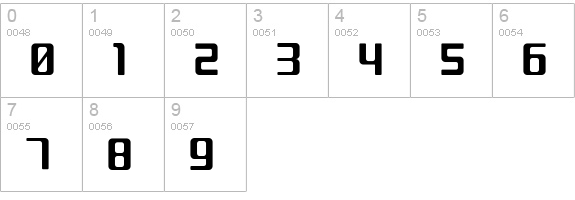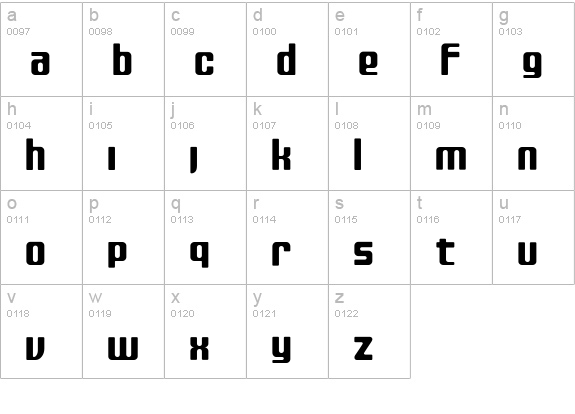
disc_black Font Details
Introducing disc_black font, a sleek and modern typeface that exudes sophistication and style. With its bold and striking design, this font is perfect for making a statement in your designs. The disc_black font is versatile and can be used for a variety of projects, from branding to editorial design. The best part? It's completely free to download at FontsMarket.com! This means you can easily add this eye-catching font to your collection without any cost. Don't miss out on the opportunity to enhance your projects with the disc_black font - download it today and take your designs to the next level.